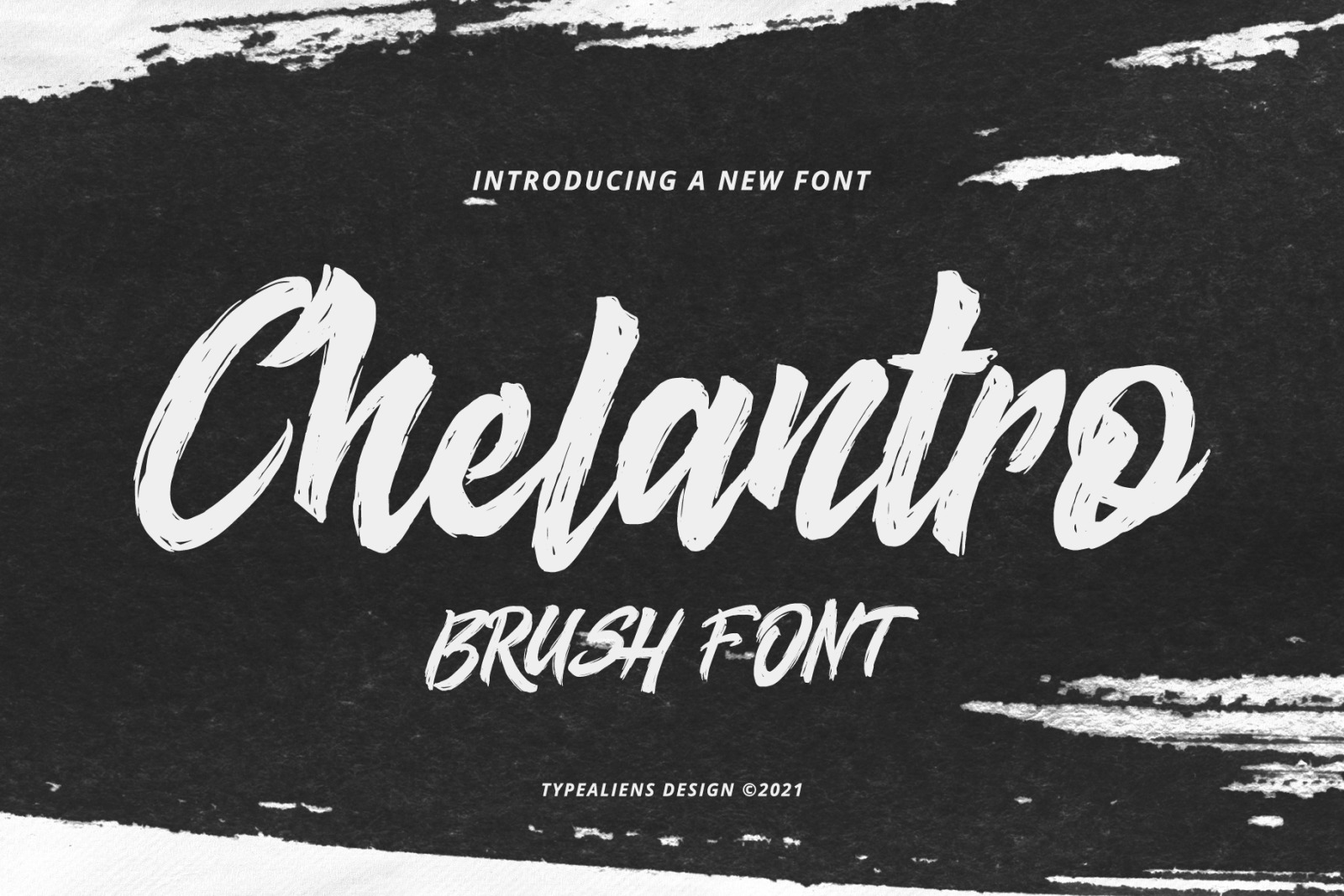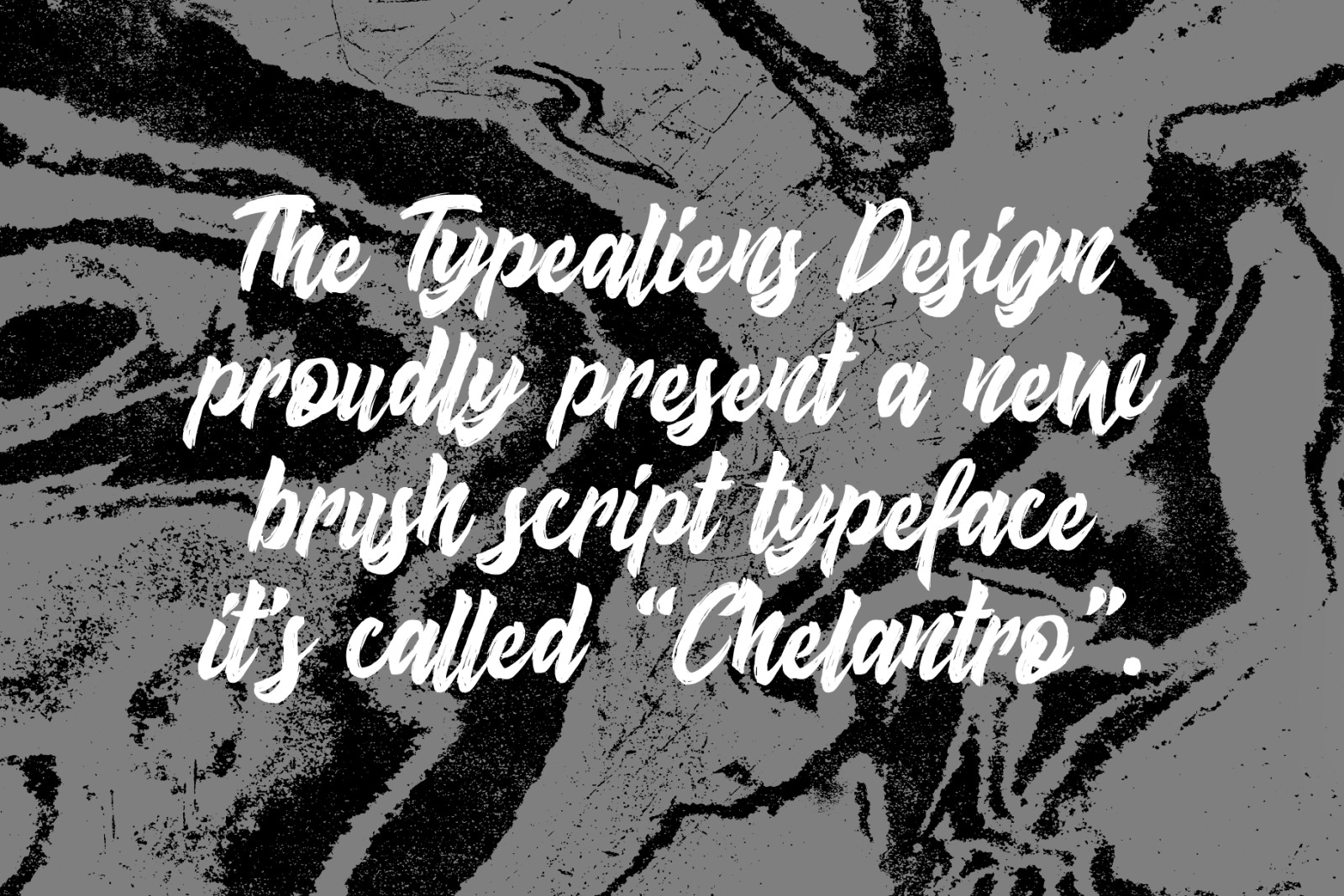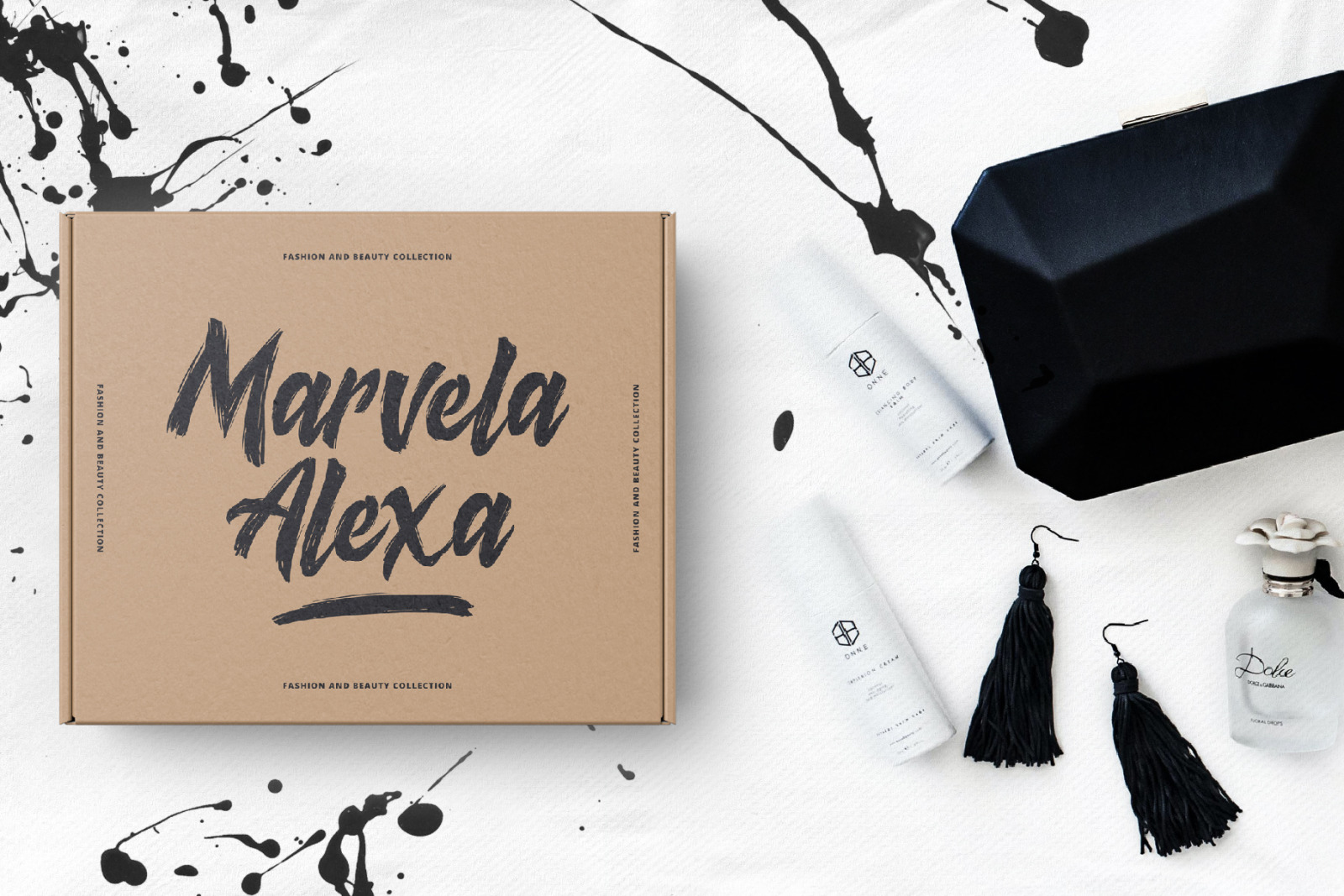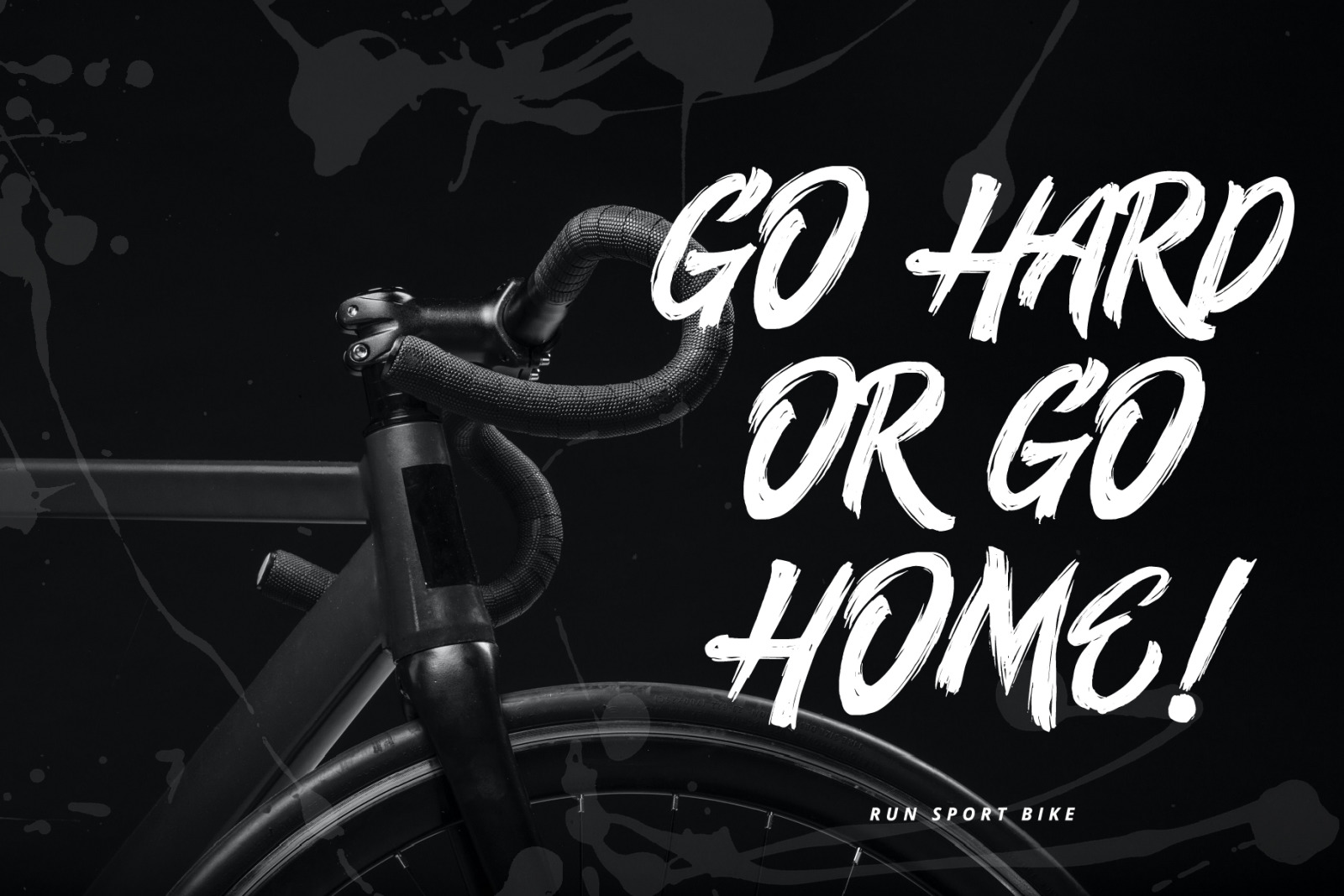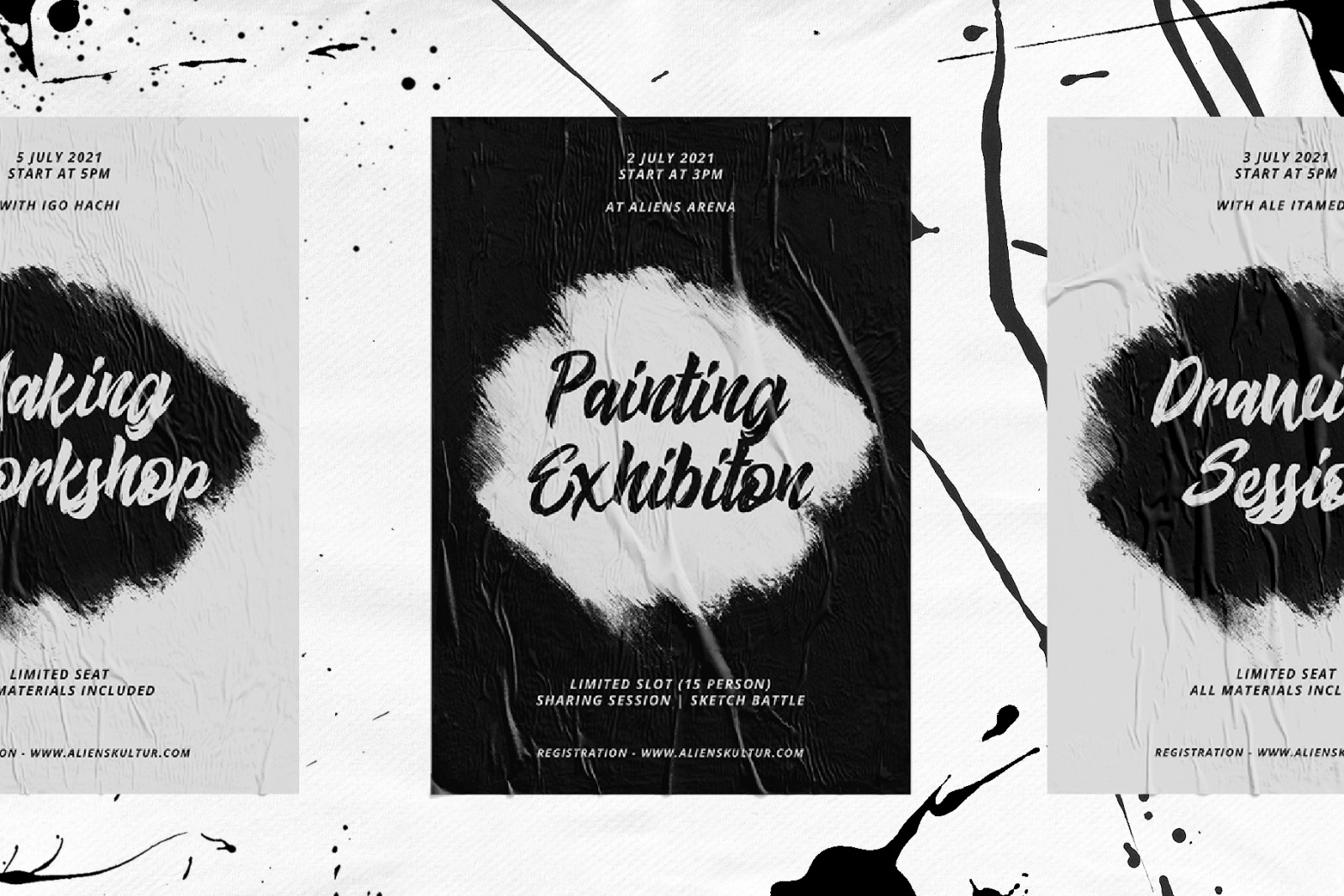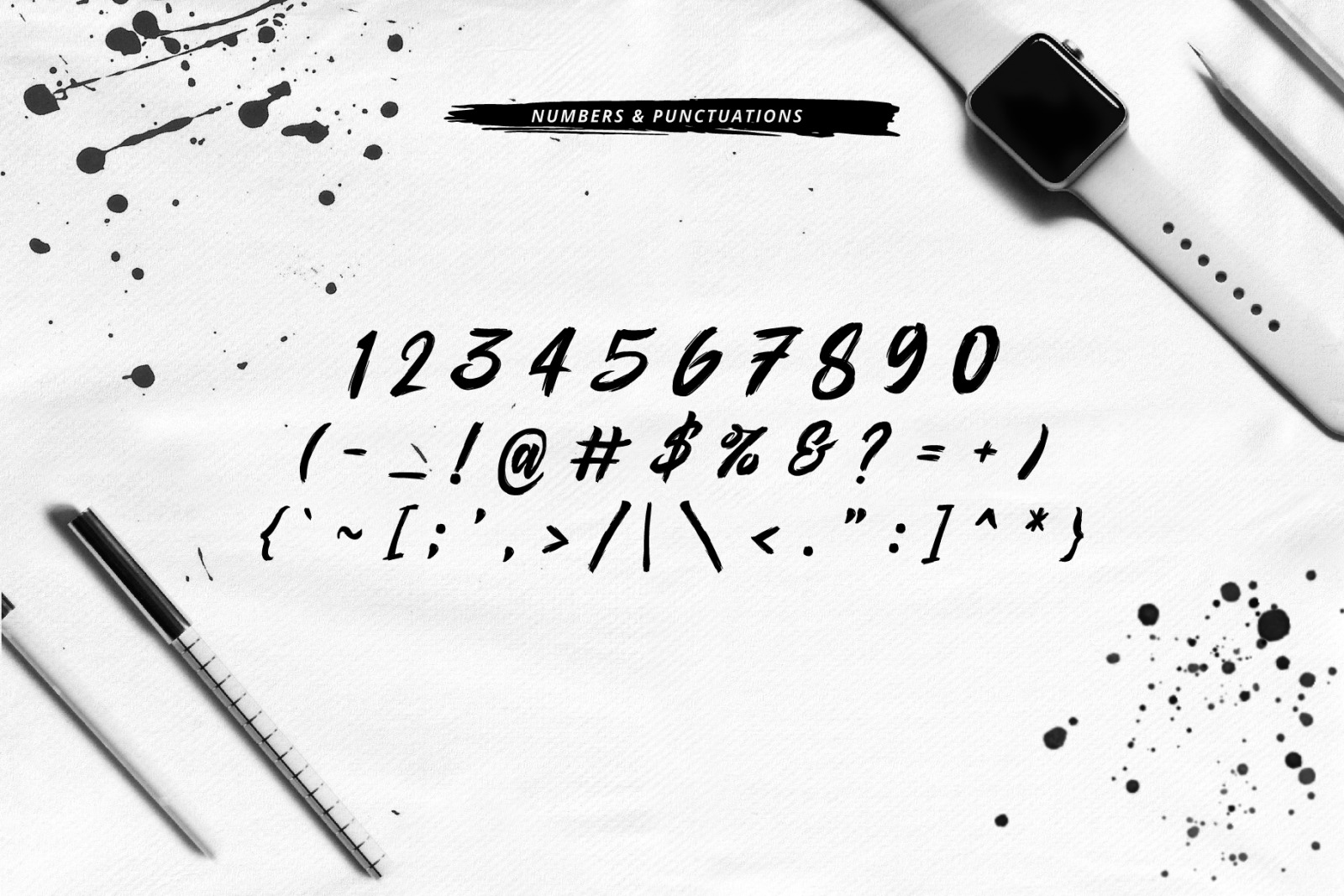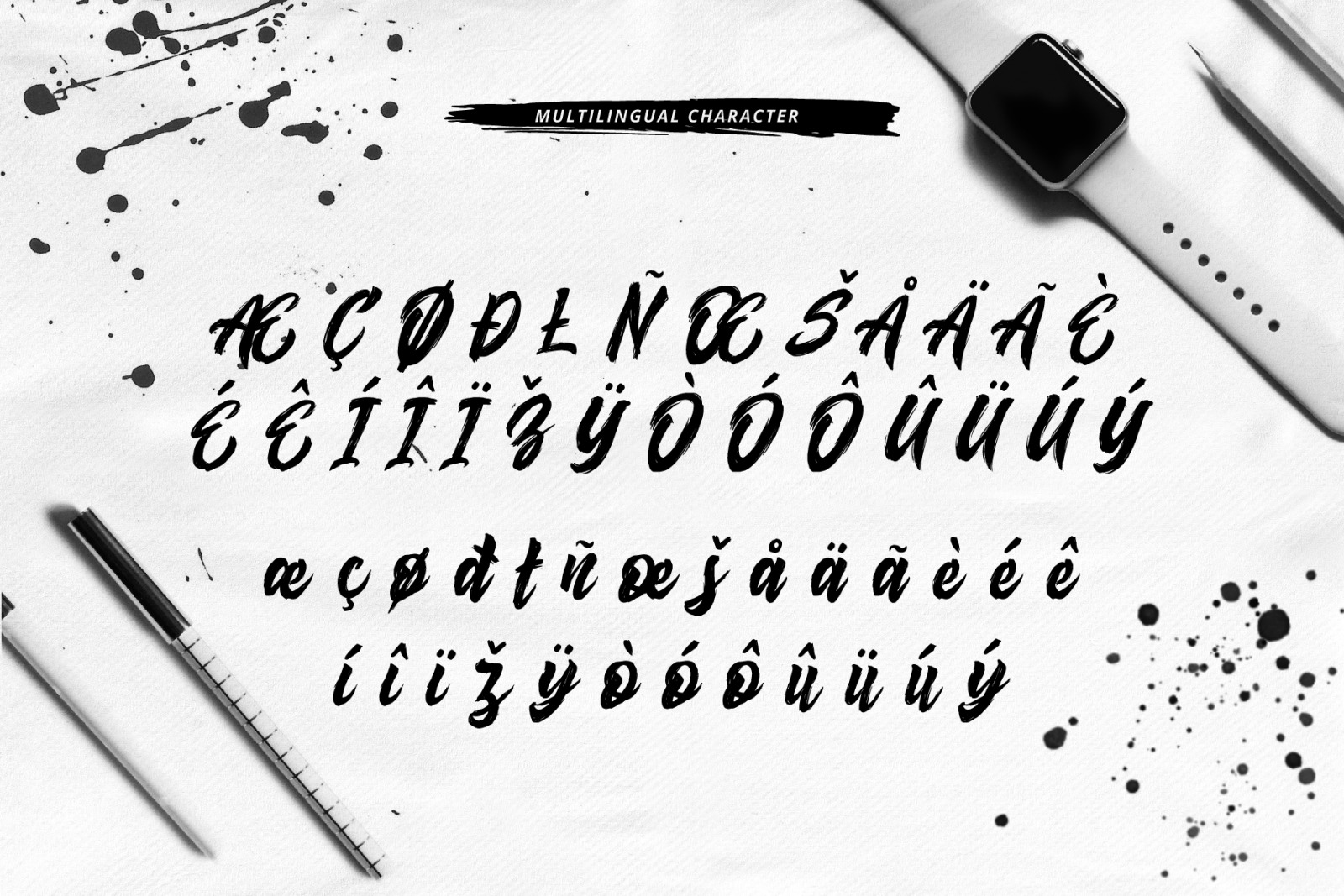
Chelantro Font
CHELANTRO is a modern calligraphy font with a brush pen. Fonts that are suitable for branding designs such as social media for food, beverage, fashion, etc.
In addition to the combination of uppercase and lowercase, when using all capital it is very good.